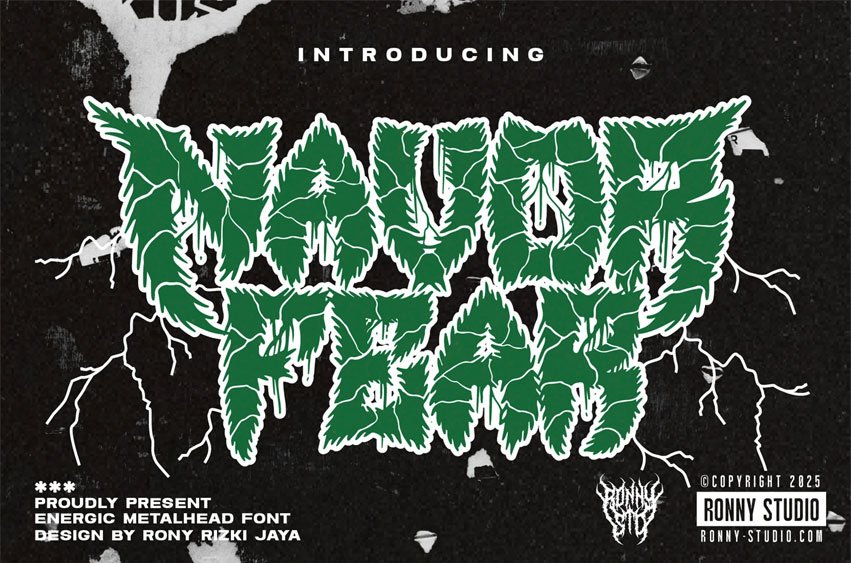
Navor Fear Font Unleash raw chaos with Naufor Fear, an electrifying extreme-metal style font crafted for bold and rebellious design. Inspired by death metal, hardcore visuals, and underground aesthetics, this font brings wild, aggressive lettering that dominates any creative project needing intensity and edge.
Perfect for metal band logos, album artwork, horror themes, dark posters, cinematic titles, YouTube thumbnails, and other visuals that demand a powerful, brutal impact.
- Energetic, Distorted Letterforms – Loud, sharp, and chaotic